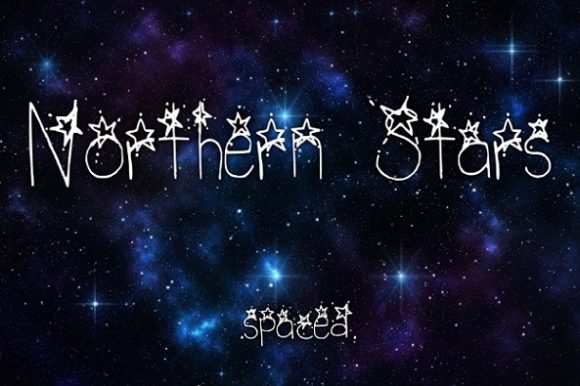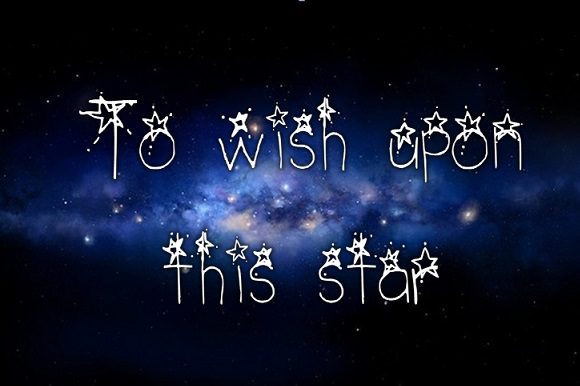
Northern Stars Spaced Font
About Northern Stars Spaced Font
Northern Stars Spaced is a fun, light, starry lettered font with just a touch more spacing than the regular version of Northern Stars. It will turn any creative project into a true stand out!